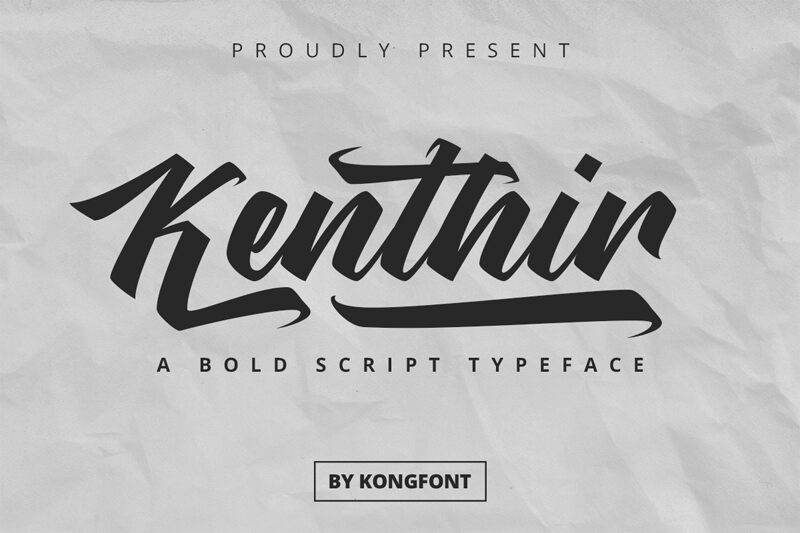
Kenthir font family by Kong Font features 6 free script font styles that are an ode to elegance. The sophisticated letterforms appear to be created using a signature-style-drawing motion which leaves the outcomes naturally dynamic and fluid. In Kenthir, you get a beautifully chic typeface with a good mix of striking swashes and impactful characters.
Use the Kenthir typefaces in logotype, branding and packaging design, business cards, taglines, and headlines. A modern take on the elegant and timeless family of script fonts, this one is suitable for a plethora of uses.